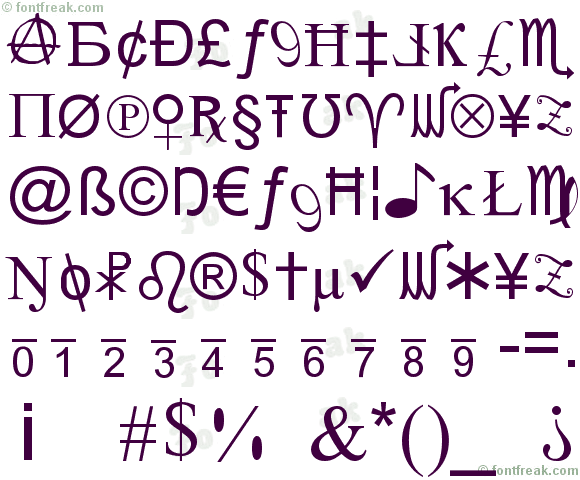
X-Cryption
About X-cryption
X-cryption is a striking decorative typeface designed by Iconian Fonts, showcasing a unique blend of modern artistry and futuristic aesthetics. This font features sharp angles and geometric forms that create a dynamic visual impact, making it an excellent choice for projects that demand attention. The stroke weight is consistent with a bold presence, while the contrast between the thick and thin lines adds an intriguing depth to the characters. The spacing is thoughtfully balanced, allowing for readability without sacrificing style, while the unique decorative elements give it a distinctive flair that sets it apart from conventional typefaces.
Ideal for various creative applications, the X-cryption font excels in settings such as movie posters, where its bold and dramatic style can enhance visual storytelling. It also works well for tech-themed branding, adding a futuristic touch to logos and advertisements. Additionally, the font's unique characteristics make it suitable for eye-catching album covers, inviting the audience to explore the music within. Small business owners can leverage X-cryption for promotional materials, such as flyers and banners, to create a memorable impression on potential customers. Graphic designers and content creators will find this font particularly appealing for web graphics and social media posts, where an engaging visual element can significantly enhance user interaction.